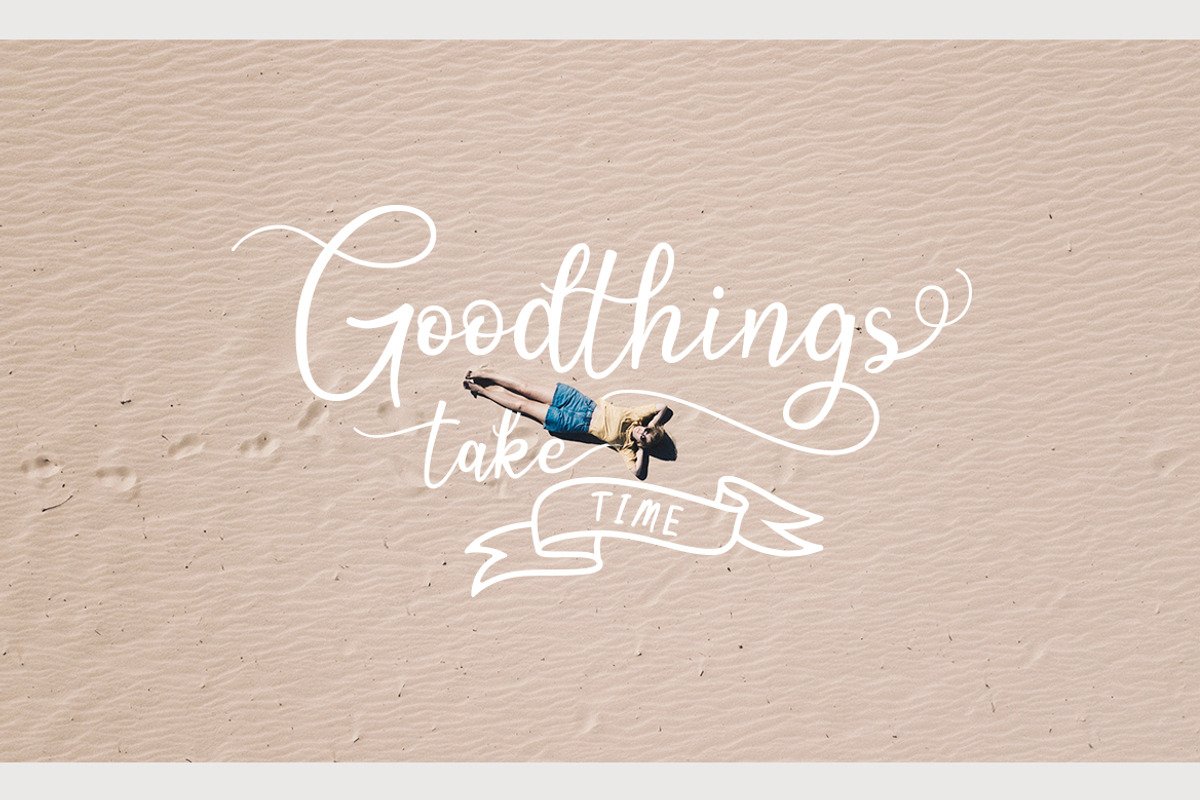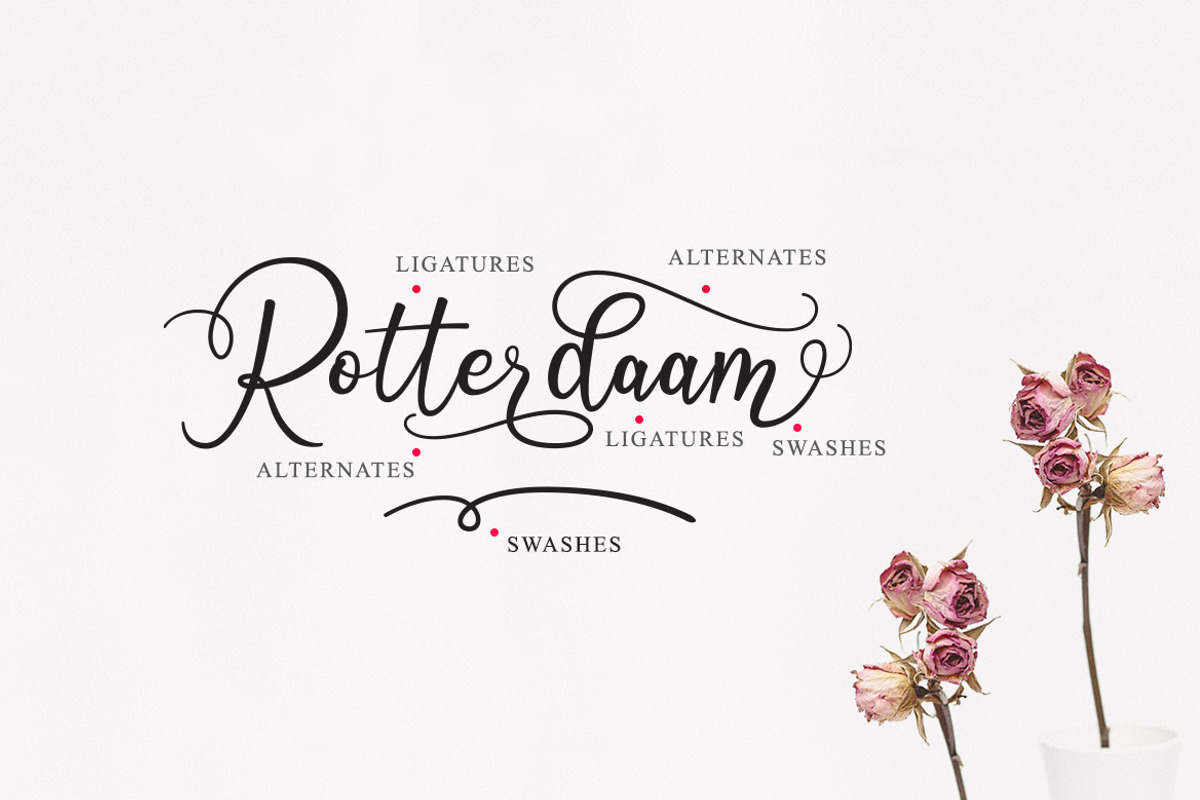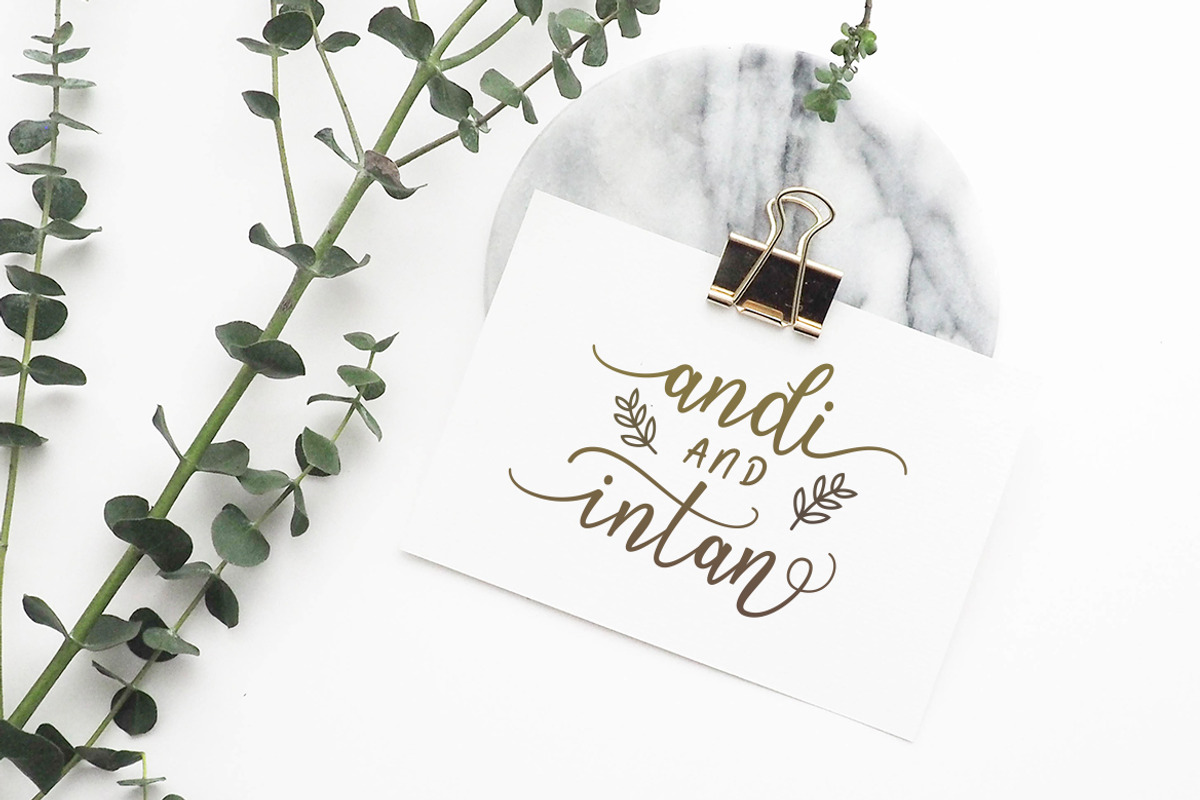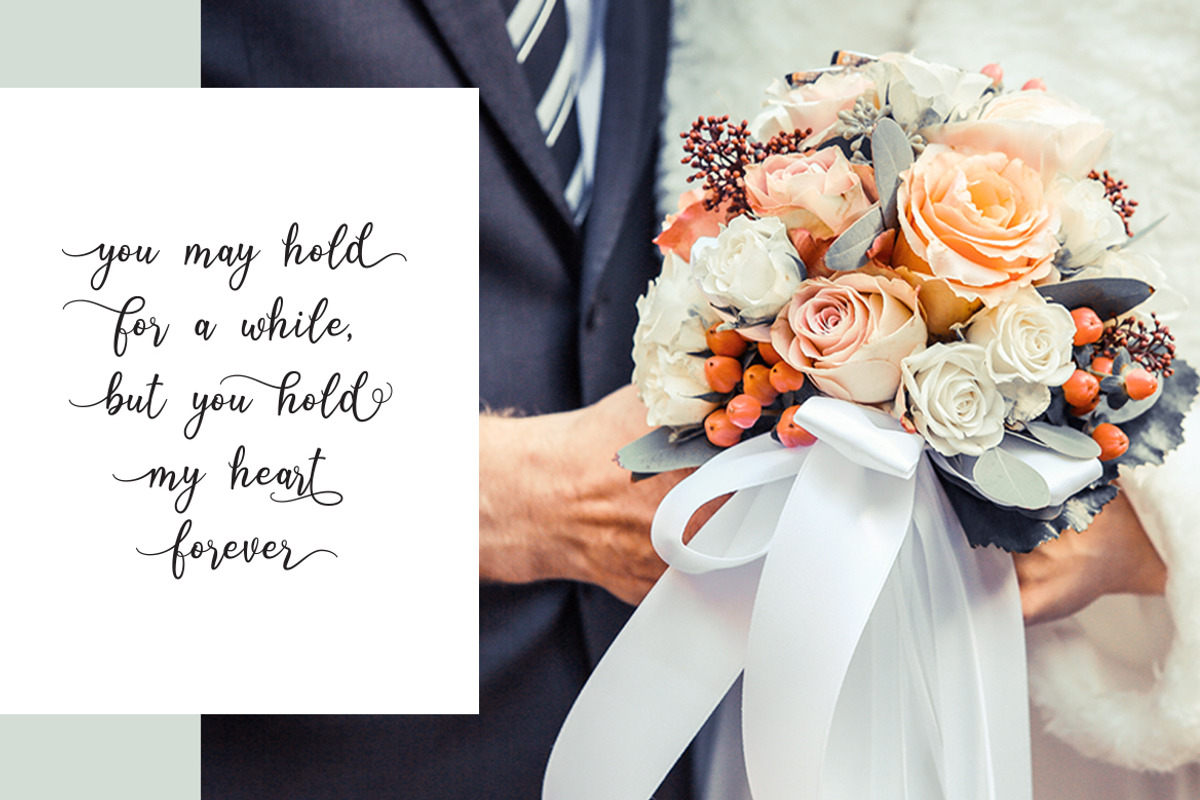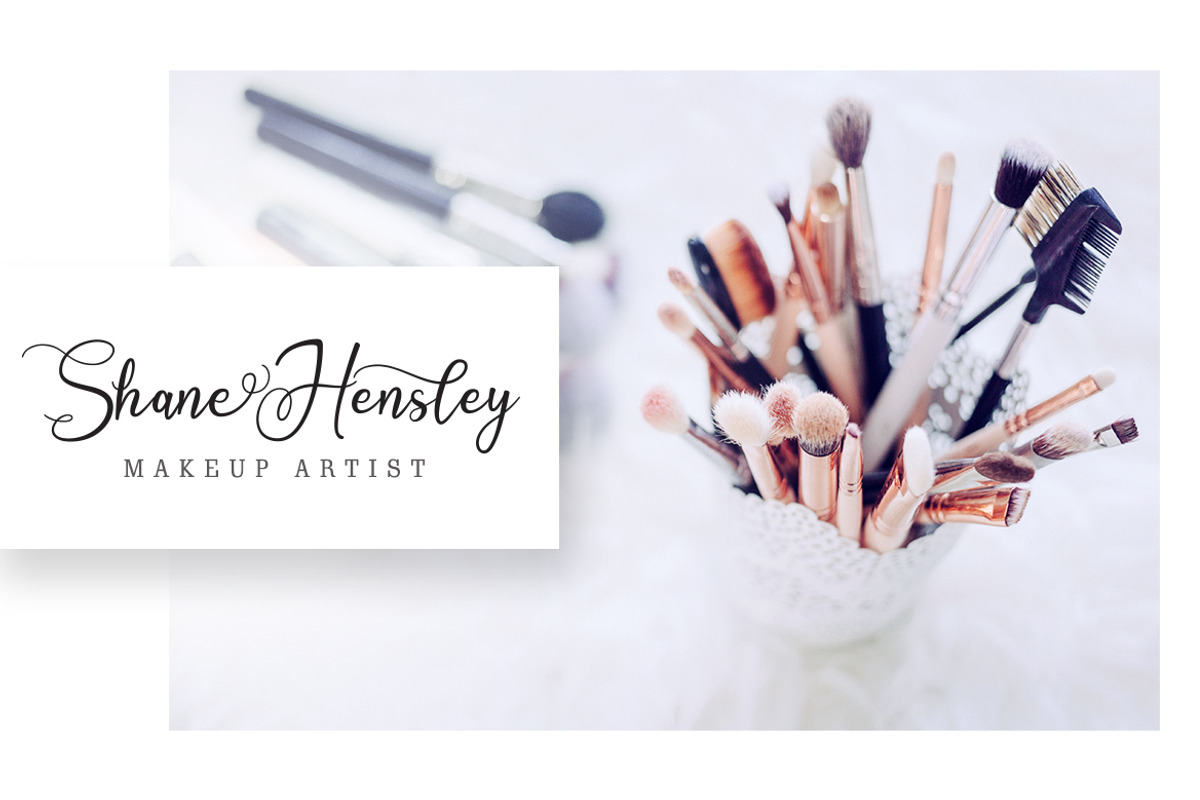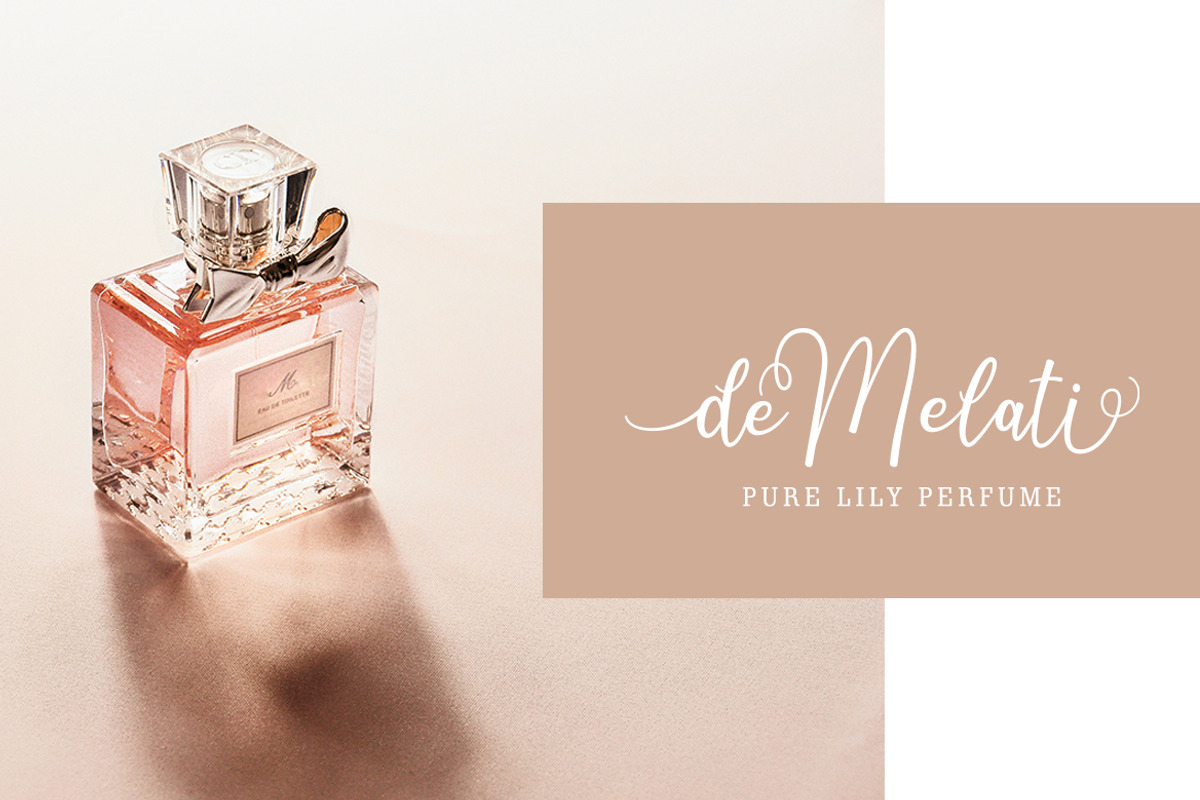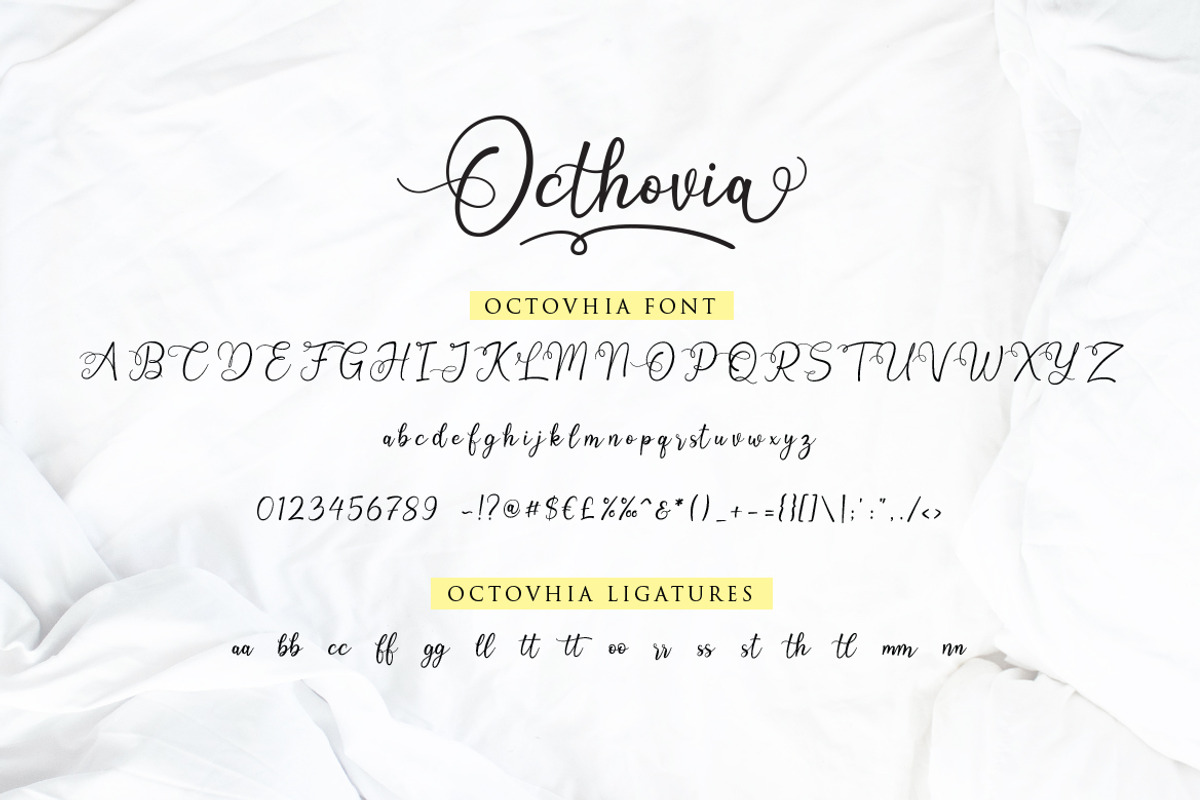
Octhovia Font Duo and Extras
Introducing Octhovia Font Duo and Extras.
A pair font with a touch of modern calligraphy and illustrations are useful to beautify every sentence written.
Octhovia is built with opentype features with additional swash at the beginning and end, alternative letters, and ligatures so it makes it look natural as written by hand.
Octhovia extras there are various illustrations of banners and doodles so you can make lots of typography designs such as labels, quotes, posters only with Octhovia.
Each letter is made with various alternatives, thus making it more varied. With modern calligraphy style for your daily and project needs ex: logo, fashion, label, apparel, photography, watermark, quotes, blog header, poster, wedding, invitation, stationery, branding, letter, etc.